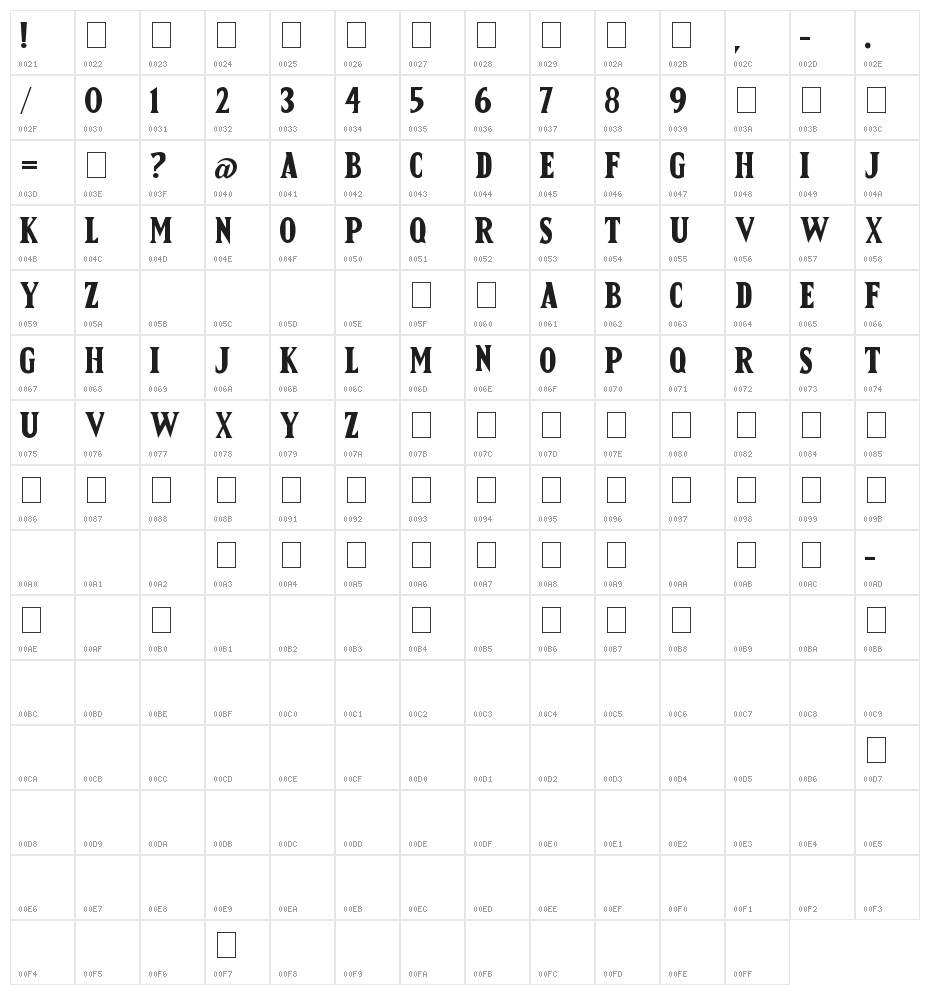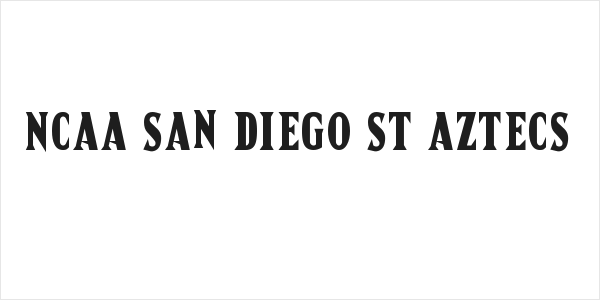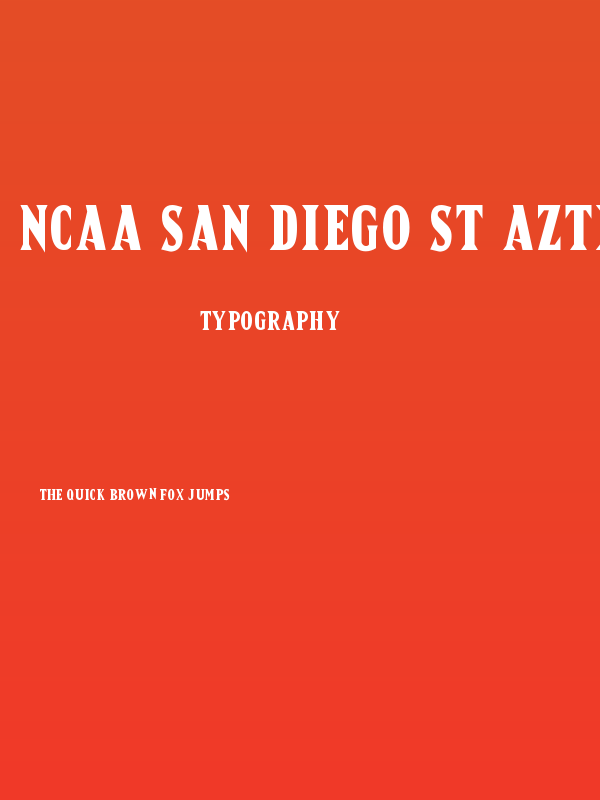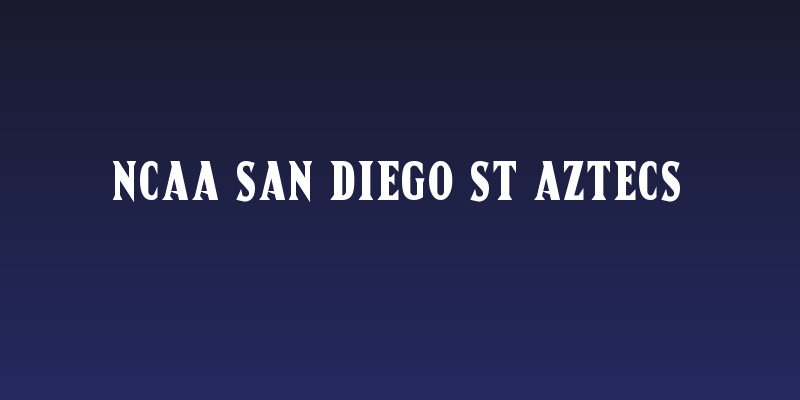
NCAA San Diego St Aztecs Font
NCAA San Diego St Aztecs Description
This font features a bold and commanding presence with its strong, angular serifs and thick strokes. The uppercase letters are designed with a sense of authority, making them ideal for impactful headlines. The numbers are equally robust, ensuring clear readability. The overall design is reminiscent of classic collegiate styles, with a modern twist that adds versatility. The characters are evenly spaced, providing a balanced and cohesive look. This font is perfect for projects that require a bold statement, combining traditional elements with a contemporary flair.
| Overall Style | Classic |
| Proposed Projects | Perfect for sports branding, university logos, team merchandise, and any project needing a bold, authoritative typeface. |